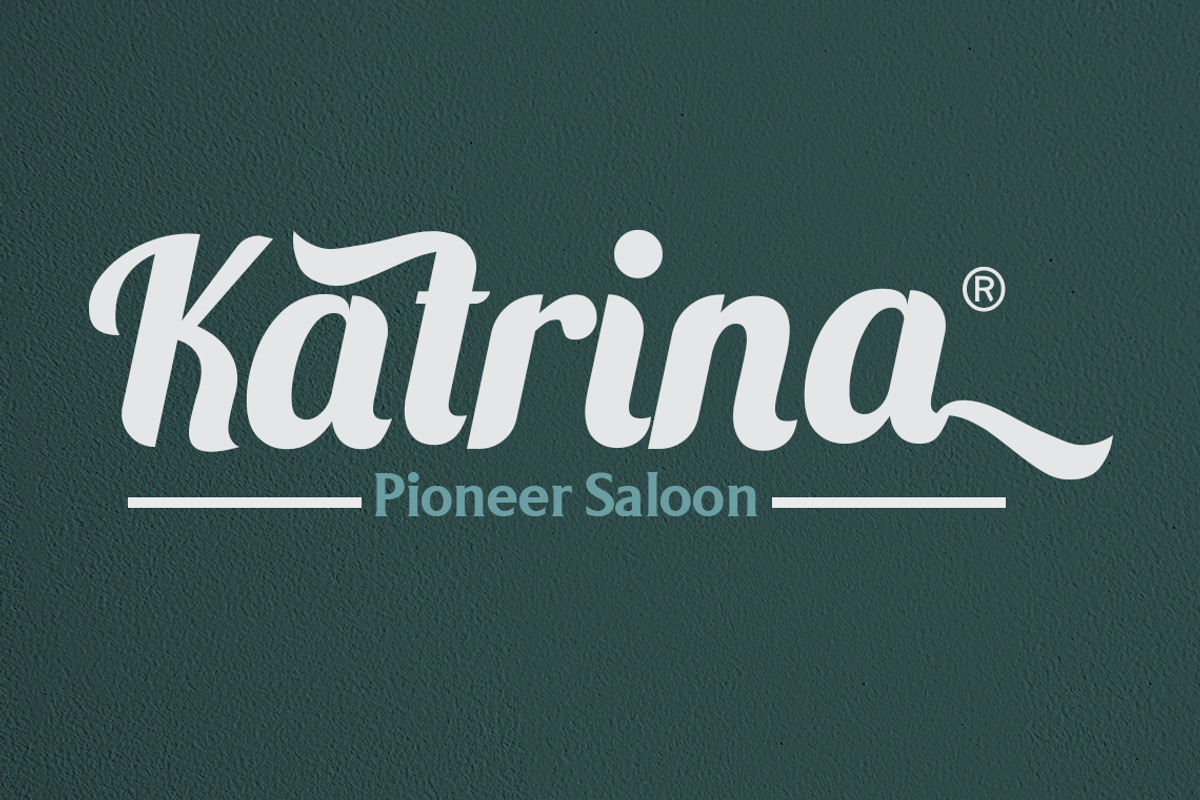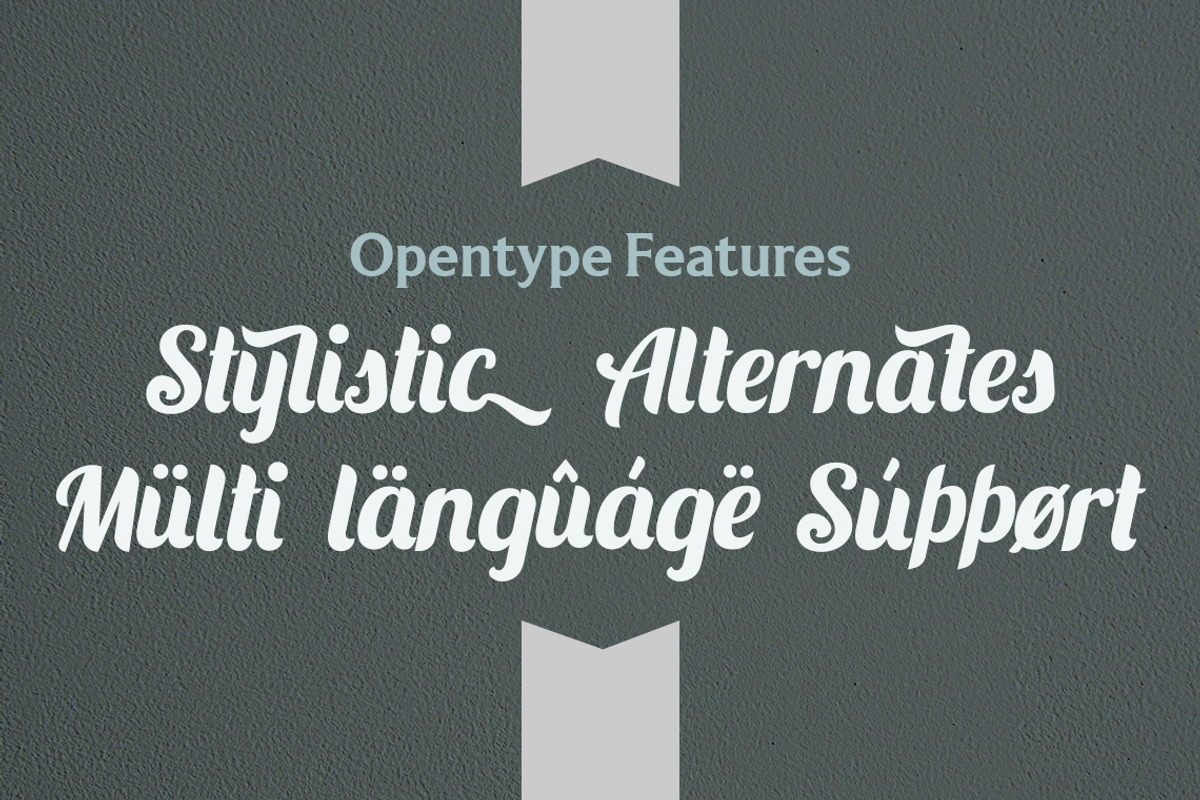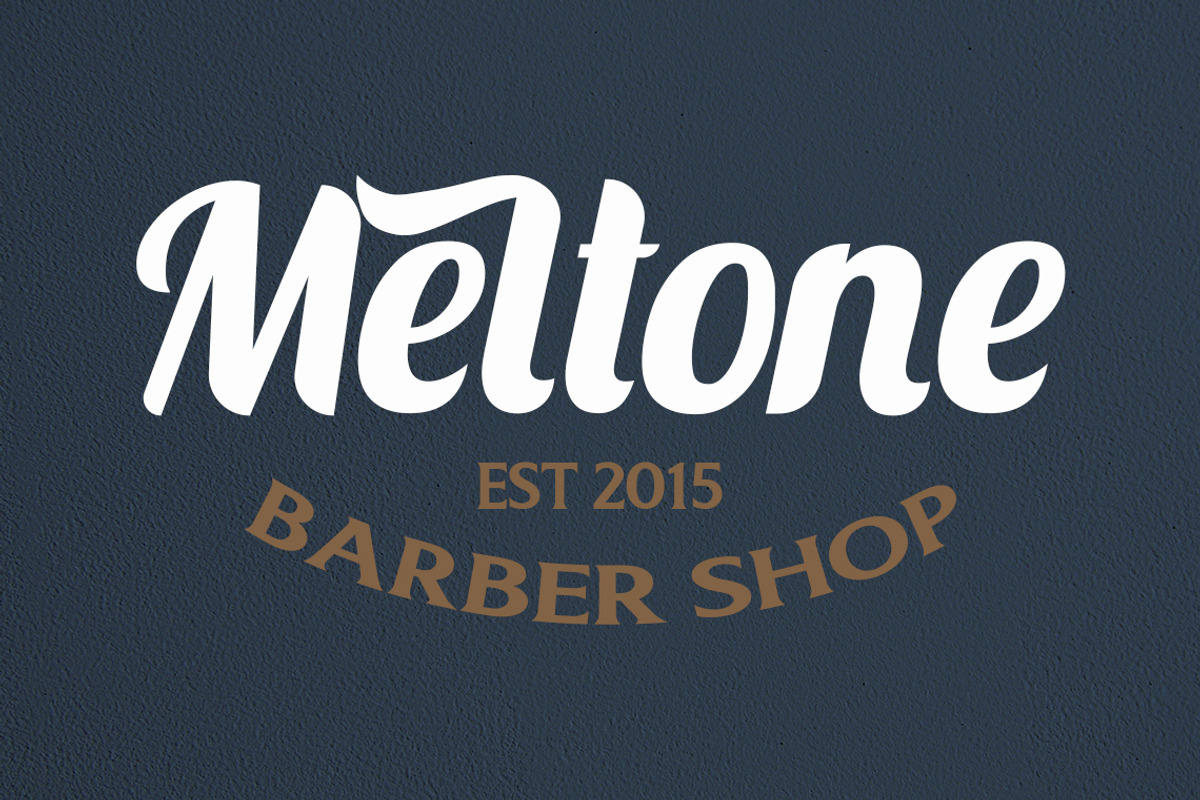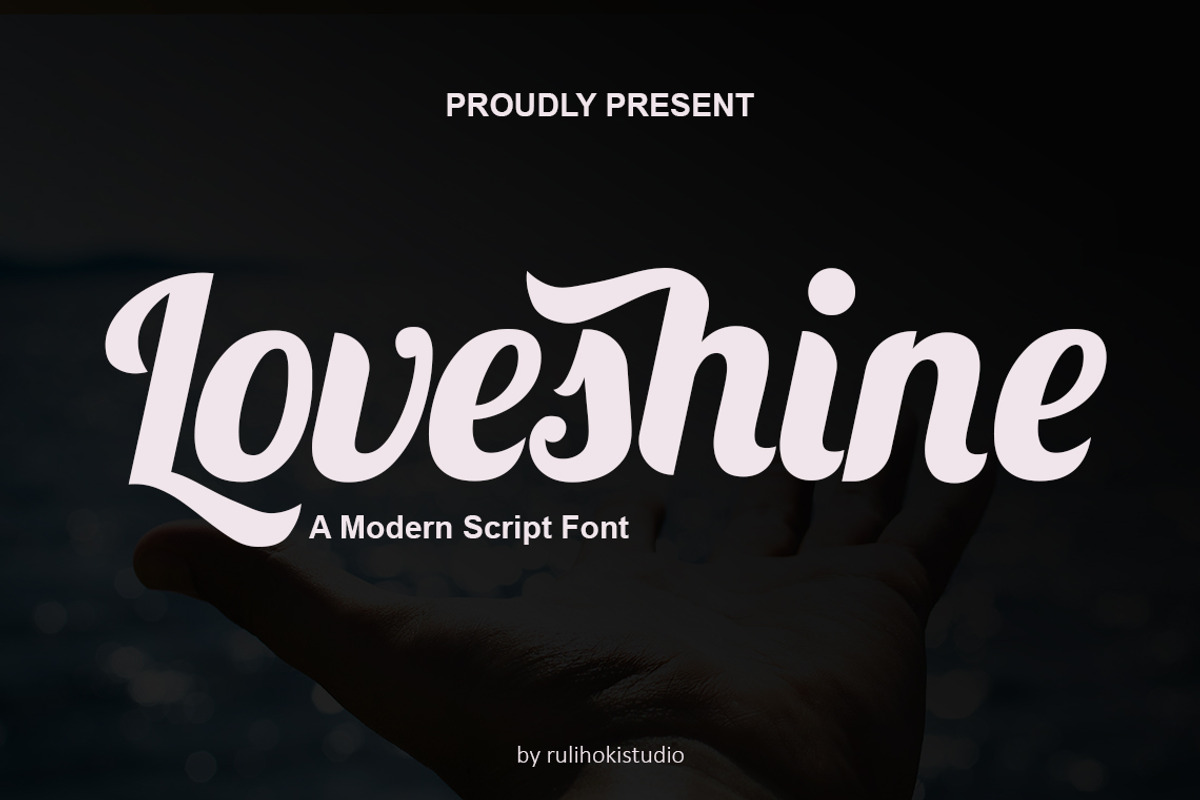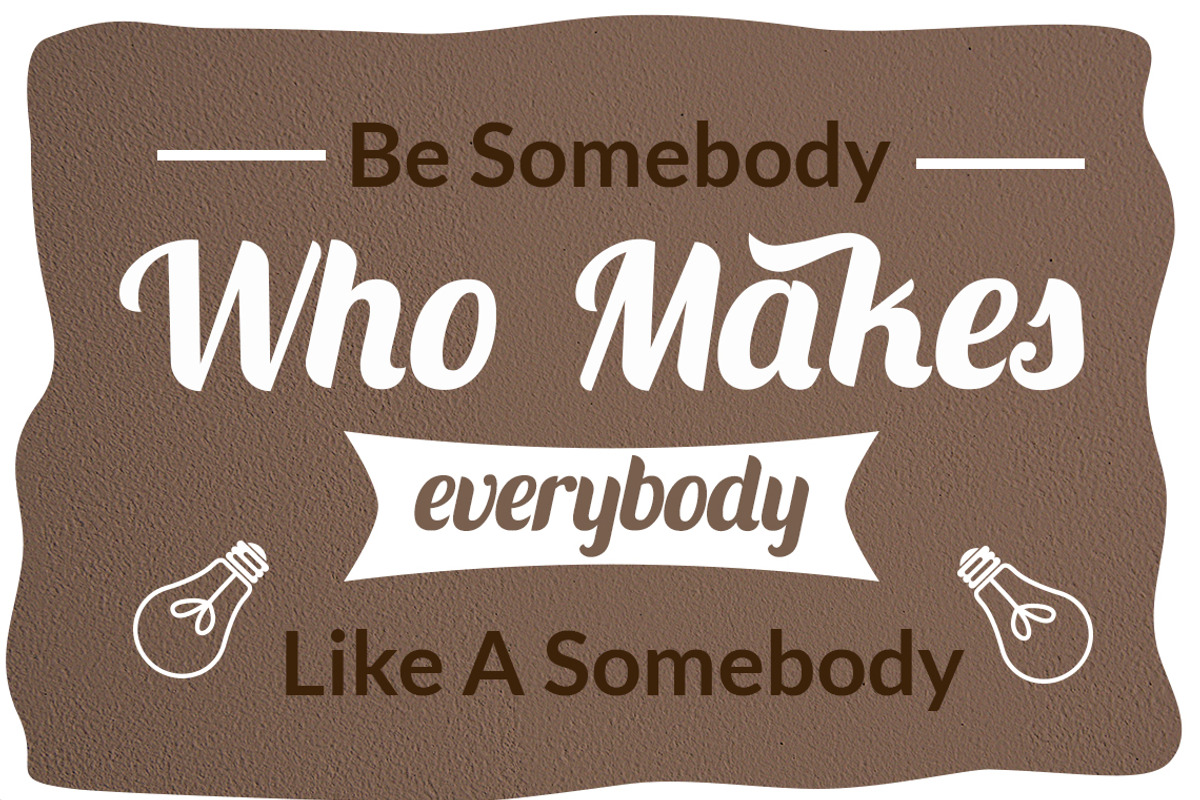
Loveshine
Loveshine is new modern script. Loveshine is stylistic style. This font is built with solid foundations, strong visuals, old-school movement, and a modern minimalist style. Loveshine is perfect for Brand, Wedding Invitation, poster, branding projects, Logo design, Clothing Branding, product packaging, vintage design, for magazine titles, and for something with the theme of stylish, etc.
- Multilanguage Support
- Stylistic Alternate